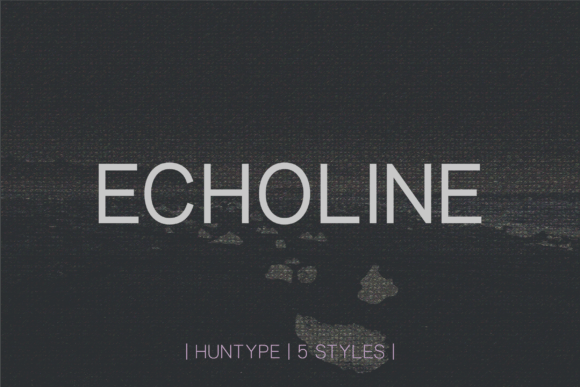
Echoline Font: Elevate Your Designs with Elegance and Versatility
In the world of typography, a font can make all the difference in the success of a design project. Introducing Echoline Sans Serif Font Family, a meticulously crafted font family that epitomizes elegance, modernity, and versatility. With its five distinct weights—THIN, LIGHT, REGULAR, BOLD, and BLACK—Echoline Font Family offers a wide range of creative possibilities, making it the perfect choice for designers and content creators.
The Echoline Font Family: A Symphony of Weights
Echoline Font Family is designed to cater to diverse design needs, with five distinct weights that can be used in various contexts. Whether you’re aiming for a subtle and delicate touch or a bold and impactful statement, this font family’s seamless blend of sophistication and contemporary style ensures your projects will shine with distinction.
- THIN: Ideal for designs that require a light and airy feel, the THIN weight of Echoline Font Family adds a touch of elegance and refinement.
- LIGHT: The LIGHT weight offers a slightly bolder alternative, perfect for designs that need a bit more presence without overpowering the content.
- REGULAR: The REGULAR weight is the workhorse of the Echoline Font Family, suitable for a wide range of applications, from body text to headings.
- BOLD: For designs that demand attention, the BOLD weight of Echoline Font Family is the perfect choice, providing a strong and confident presence.
- BLACK: The BLACK weight is ideal for making a bold statement, adding a dramatic touch to your designs and ensuring they stand out.
Elegance and Modernity in Every Detail
Echoline Font Family is not just about versatility; it’s also about style. Each weight in the family is meticulously crafted to ensure that every letterform exudes elegance and modernity. The clean lines, balanced proportions, and subtle curves come together to create a font that is both sophisticated and contemporary.
One of the standout features of Echoline Font Family is its exceptional legibility. In an era where digital content dominates, readability is crucial. This font family ensures that your text is clear and easy to read, whether it’s on a website, in a print publication, or on a digital device.
Endless Creative Possibilities
The versatility of Echoline Font Family opens up endless creative possibilities. Designers can use the different weights to create visual hierarchies, add emphasis, and convey different tones and moods. For example:
- Branding: Use the THIN or LIGHT weights for logos and wordmarks that require a subtle and elegant touch. For headlines and titles, switch to the BOLD or BLACK weights to create a strong and memorable impact.
- Web Design: The REGULAR weight is perfect for body text, providing a clean and readable experience for users. For headings and subheadings, experiment with the LIGHT to BOLD weights to create a visually appealing hierarchy.
- Print Design: Whether you’re working on a brochure, poster, or magazine, Echoline Font Family offers the flexibility to adapt to any design requirement. Use the THIN weight for captions and the BLACK weight for headlines to create a dynamic and engaging layout.
Why Choose Echoline Font Family?
In a market flooded with font options, Echoline Font Family stands out for several reasons:
- Quality and Craftsmanship: Each weight in the Echoline Font Family is meticulously crafted to ensure the highest level of quality. The attention to detail in every letterform, from the subtle curves to the precise line weights, reflects a deep understanding of typographic excellence.
- Versatility: With five distinct weights, Echoline Font Family offers a range of creative possibilities that cater to different design needs. This versatility makes it a valuable addition to any designer’s toolkit.
- Elegance and Modernity: The font family’s sleek and contemporary design ensures that it remains relevant in an ever-evolving design landscape. Its elegance shines through in every detail, making it suitable for projects that demand a refined aesthetic.
- Legibility: In an age where digital content is king, readability is paramount. Echoline Font Family excels in this area, providing clear and legible text across various devices and screen sizes.
How to Use Echoline Font Family
Integrating Echoline Font Family into your projects is straightforward. Here are some practical tips to get you started:
- Pairing: Experiment with pairing Echoline Font Family with other typefaces to create interesting contrasts. For example, pairing it with a serif font can add depth and sophistication to your designs.
- Hierarchy: Use the different weights to establish a clear visual hierarchy. This is particularly important in editorial design, where guiding the reader’s eye through the content is crucial.
- Color: Don’t forget to experiment with color. The elegance of Echoline Font Family can be further enhanced by thoughtful color choices that complement the overall design.
Whether you’re working on a branding project, web design, or print materials, Echoline Font Family provides the flexibility and sophistication you need to make your designs shine. Embrace the elegance and versatility of Echoline Font Family and discover new ways to bring your creative visions to life.